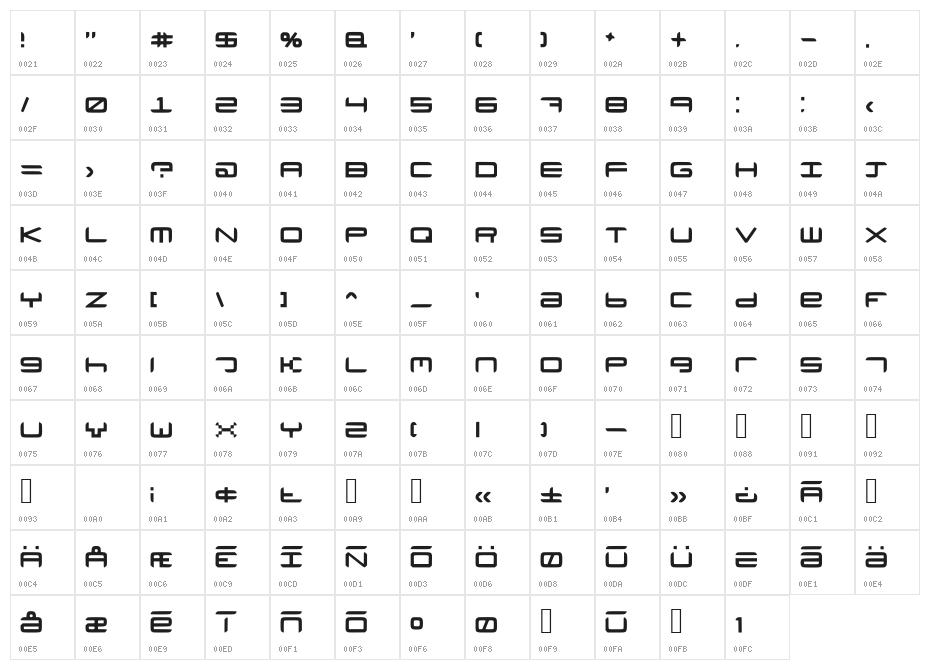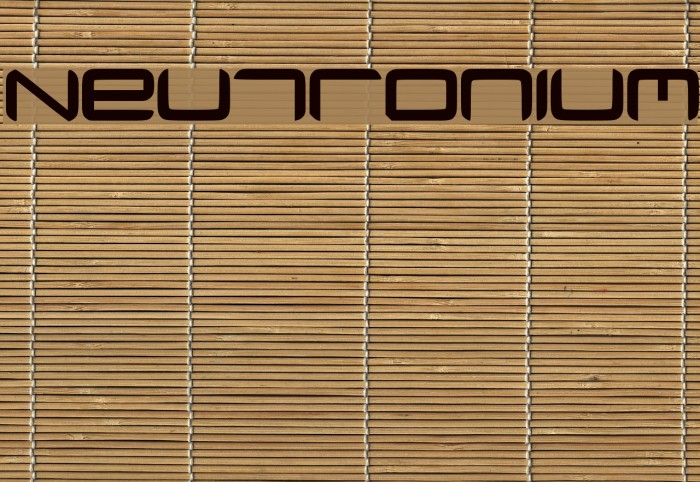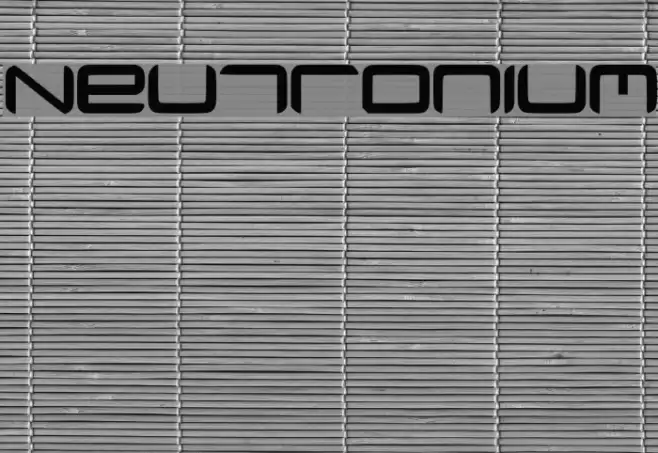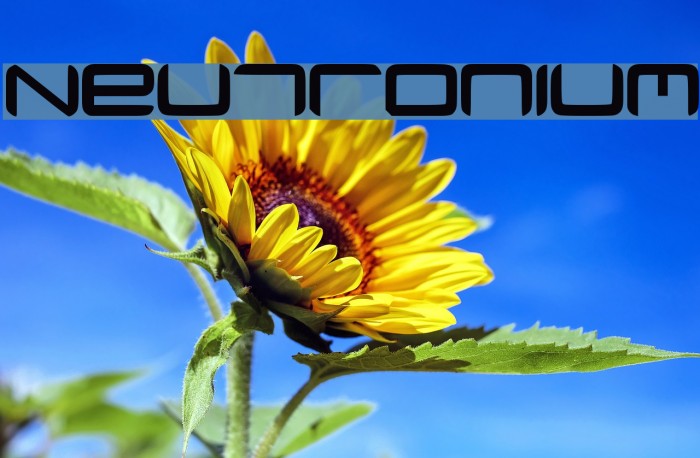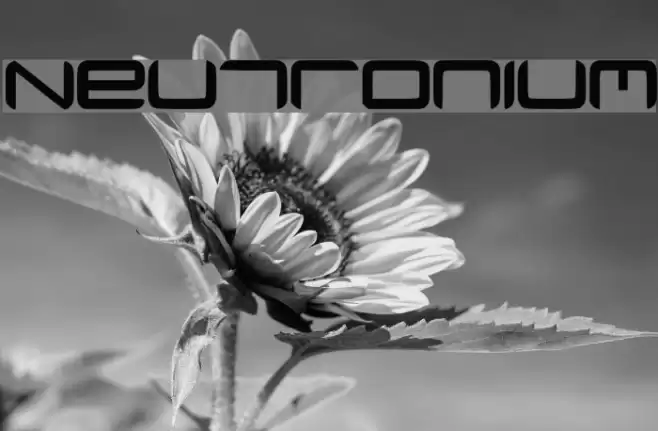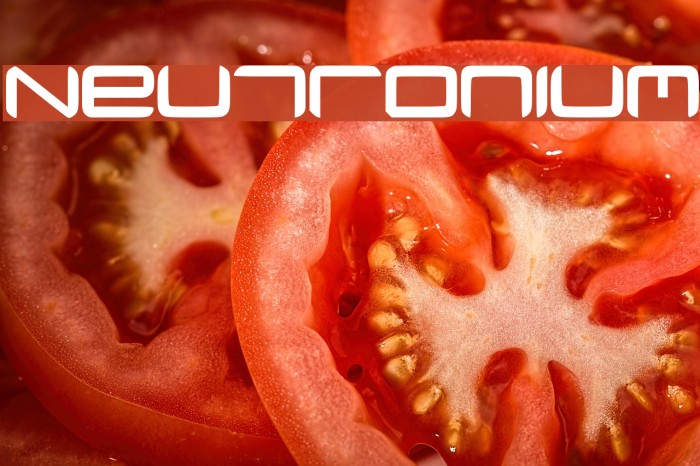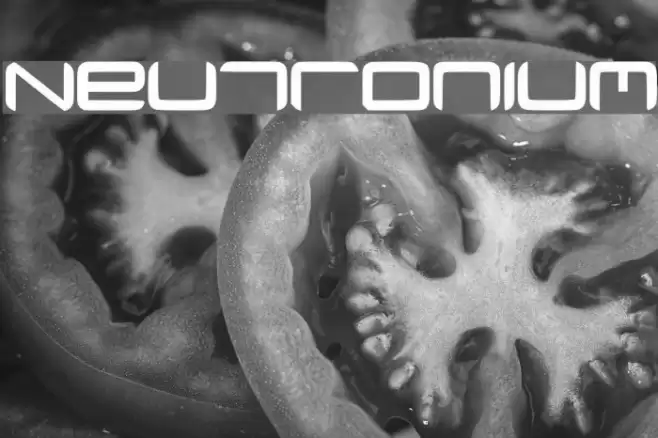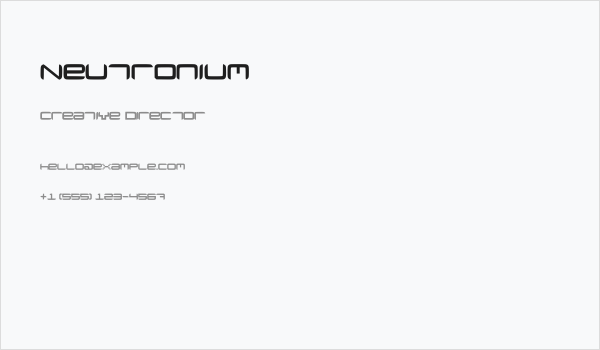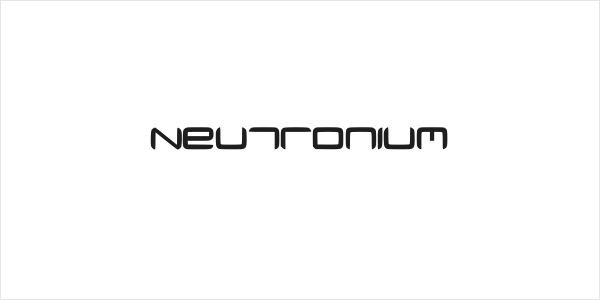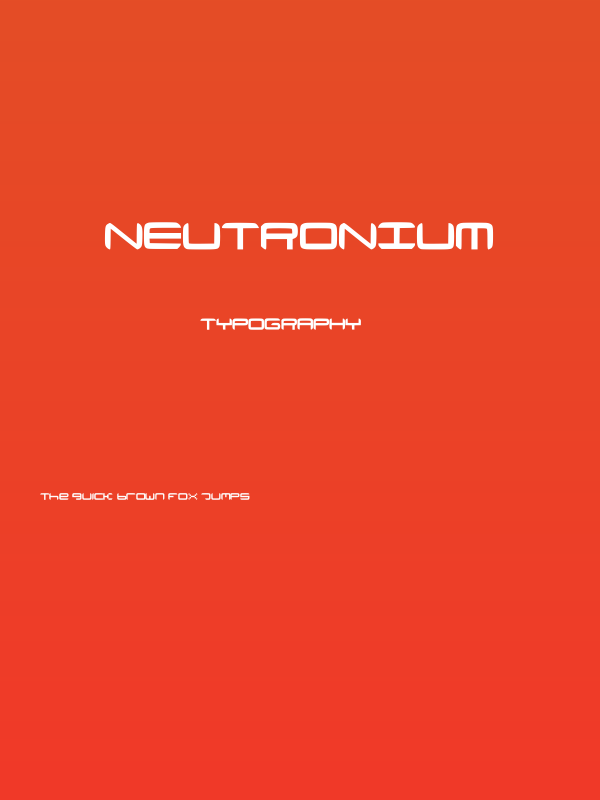
Neutronium Font
Neutronium Description
This font features a futuristic and geometric design with a strong emphasis on rounded edges and uniform stroke widths. The characters are bold and have a distinct digital aesthetic, making them suitable for modern and tech-oriented projects. The uppercase and lowercase letters maintain a consistent style, with slight variations to enhance readability. Numbers and special characters are designed to match the overall theme, ensuring a cohesive look across all text elements. The font's unique style is both eye-catching and versatile, ideal for creating a strong visual impact.
| Proposed Projects | Ideal for technology branding, sci-fi movie posters, video game titles, and modern web design. |